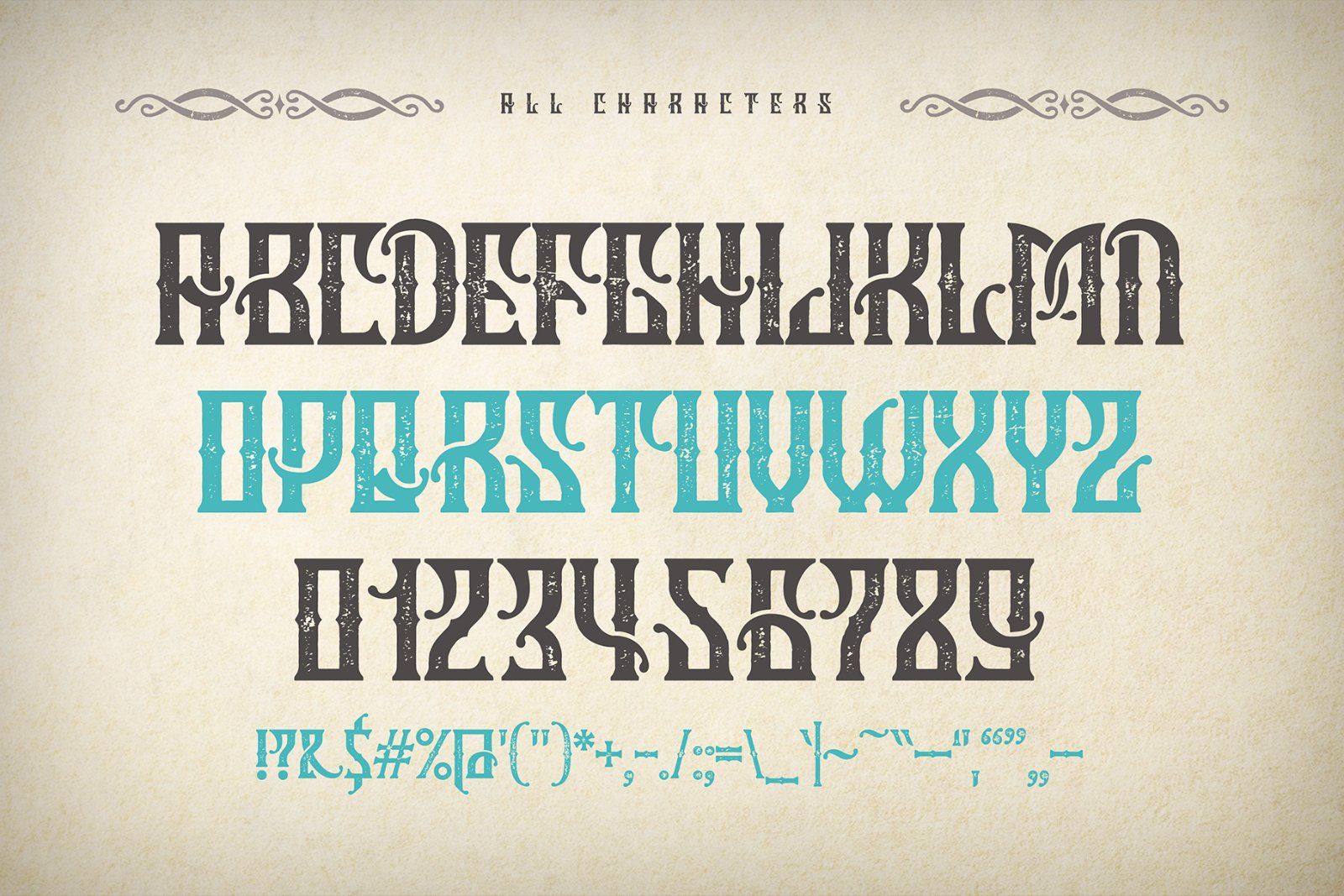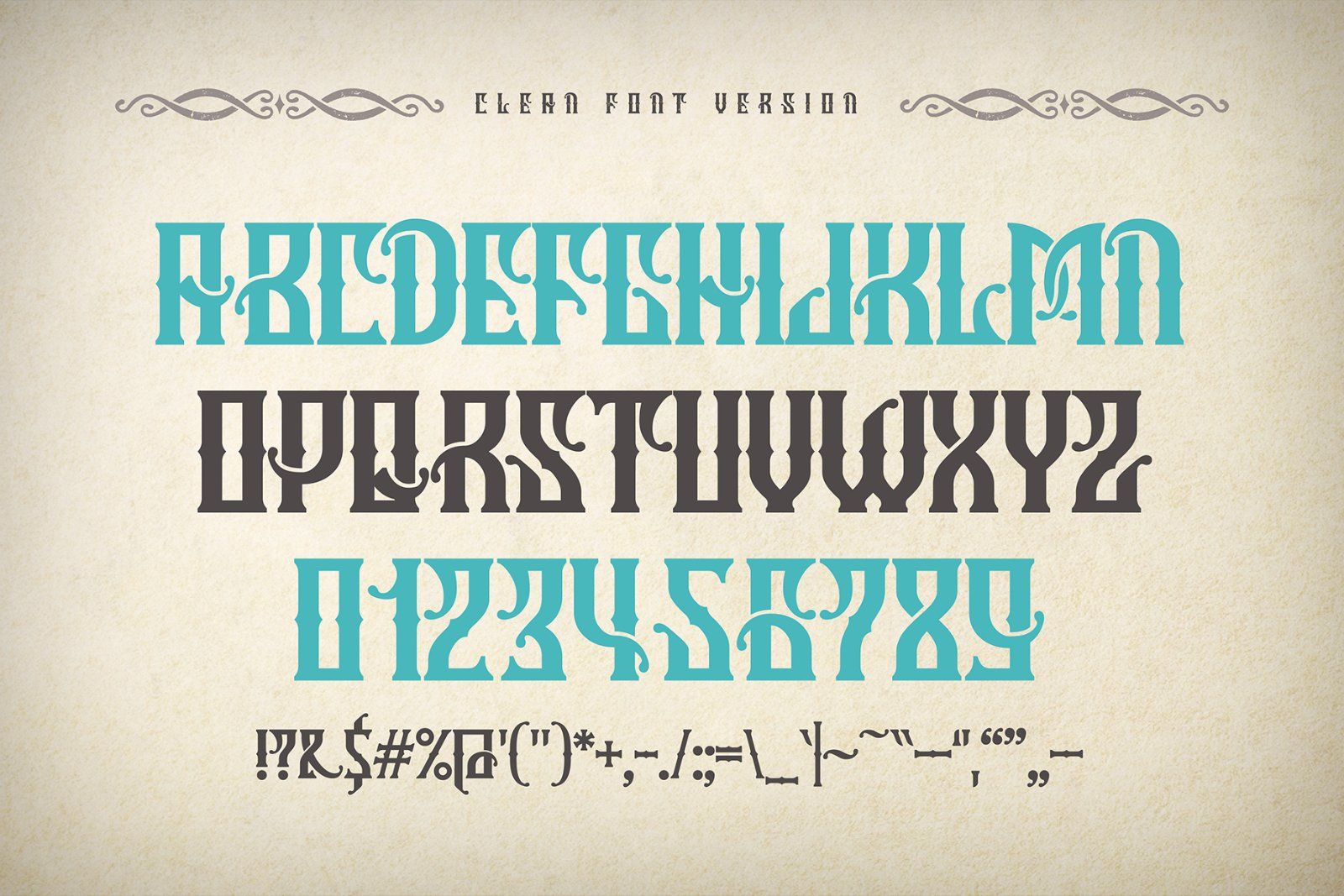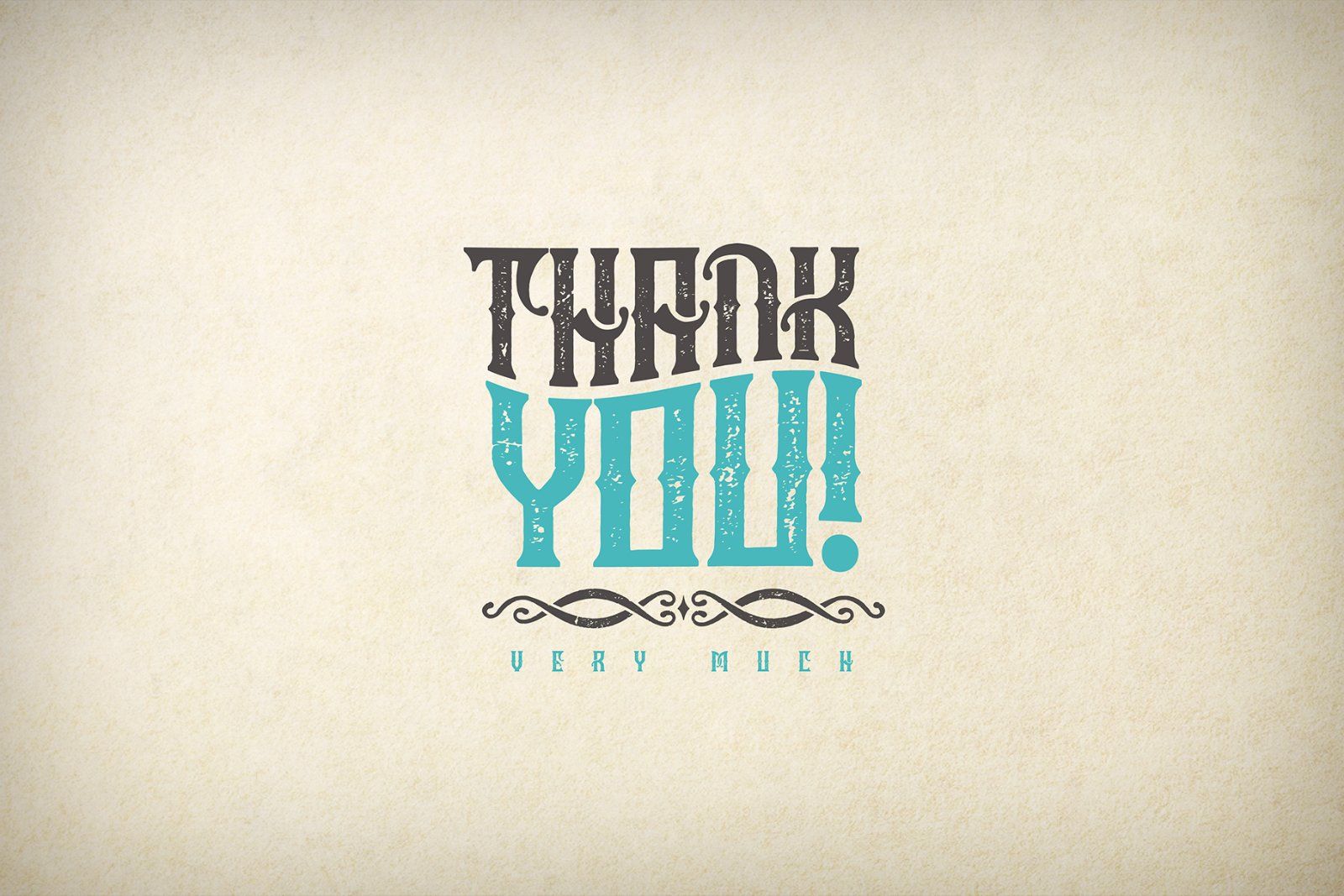
Introducing "Marine Fairytale" font. Vintage shape with dirty texture makes it unique and authenicue typeface. With this font you also will have a set of illustrations with different sea objects and creatures. Also the clean version of font is included.
Note: the font contains only Latin letters (all the characters you can see on second and fourth screenshot)